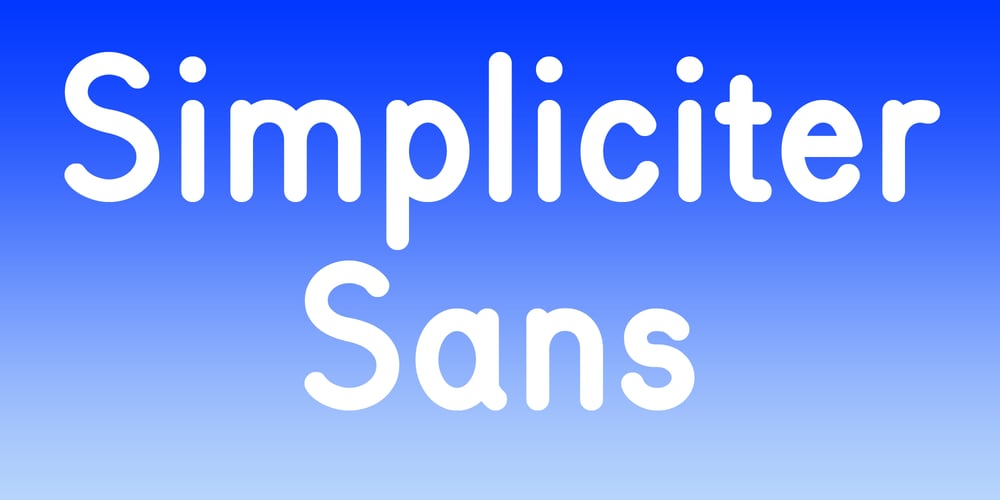
Simpliciter Sans
Simpliciter Sans font
Simpliciter Sans Font Family was designed by Lars Törnqvist and published by Cercurius. Simpliciter Sans contains 5 styles and family package options. Simpliciter Sans is a typeface based on the lettering used in the 20th century on technical drawings, either written by free hand or using templates. The lettering was made with a round pen, therefore all lines got rounded ends. All lines had the same thickness in uppercase, lowercase and small caps. The upright style was used on construction drawings and the italic style on machine drawings. The backslant style was used on maps for names of water bodies — seas, lakes, rivers etc. — and for water depth. Simpliciter Sans is primarily intended for texts on drawings, diagrams, charts and maps, but it can also be used for signs and labels. It also works surprisingly well as a body type in smaller sizes.